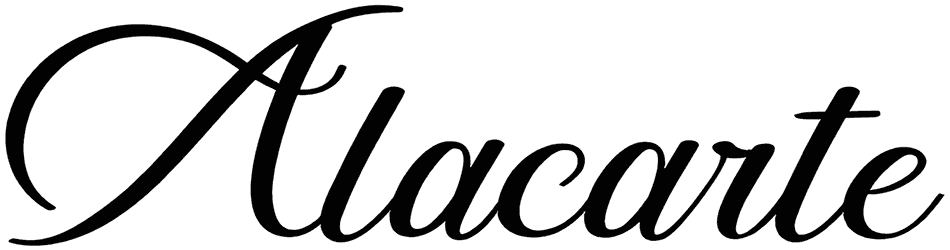
Alacarte Font
Alacarte is like a magic spell woven into words. In this calligraphy font, each pen stroke is carefully designed to create a symphony of shapes and curves that dance across the page.
The beauty of this certificate font lies in its ability to convey meaning and emotion through the written word in invitations, wedding cards, and sincere greetings because it can imbue the words with an extra dose of sincerity and grace that gives them a new level of importance.
Alacarte is a stylish and incredibly elegant script font. It looks stunning on wedding invitations, thank you cards, quotes, greeting cards, logos, business cards and every other design which needs a handwritten touch.